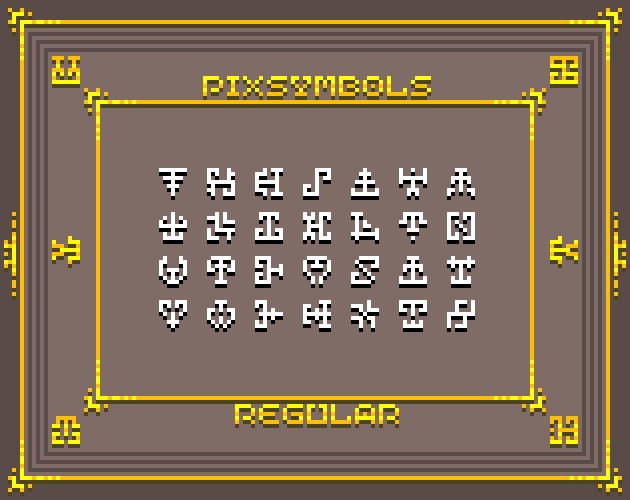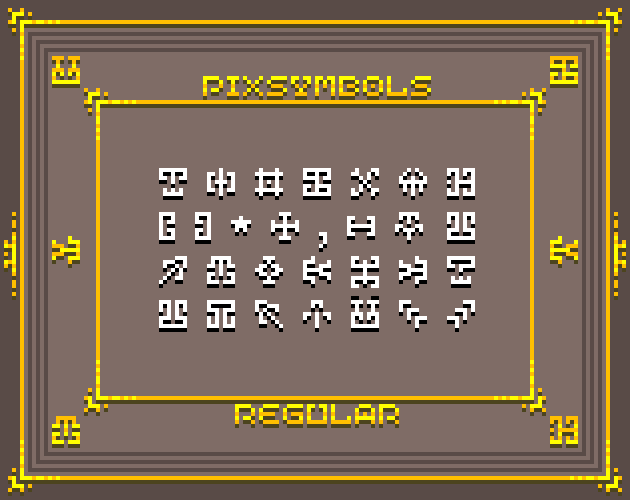
Pixsymbols Regular Pixel Font
Pixsymbols Regular [7x7 Font]
Pixelart font specifically for game developers seeking a new, nostalgic touch in their creations. Bring back that sense of retro gaming while offering nice readability and versatility. Whether used for dialogues, UI elements, or captions, this font will elevate your gaming experiences with its distinctive style and character.
Supported Characters:
ABCDEFGHIJKLMNOPQRSTUVWXYZ
abcdefghijklmnopqrstuvwxyz
0123456789 !"#$%&'()*+,-./:;<=>?[]\^_`{}|~@
Special characters also supported.